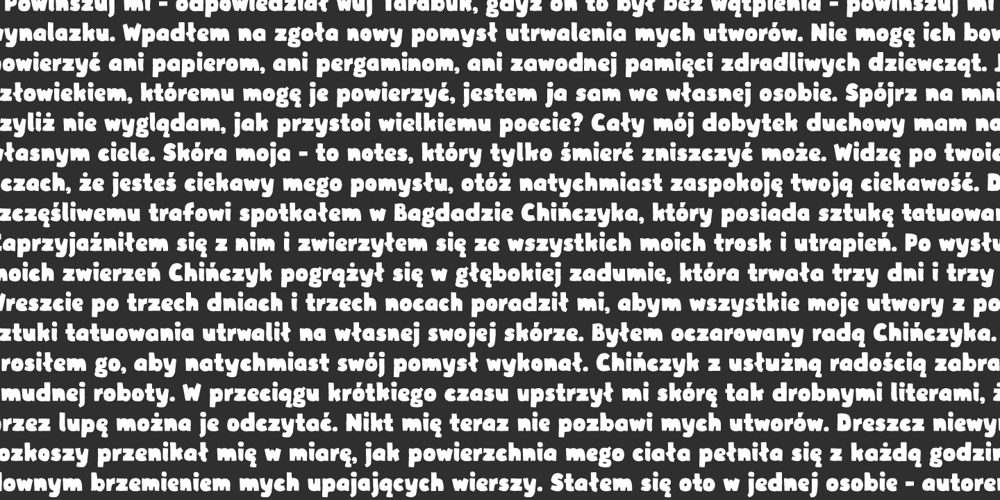
Graphen
Graphen font
Graphen Font Family was designed by Maciej Włoczewski and published by Picador. Graphen contains 5 styles and family package options. Graphen family is a hand drawn typeface with 5 different weights. This font contains script that replaces glyphs with their alternates. It is based on checking the same glyphs in close range – not on a random appearance. Every weight was designed with attention to detail, so it can be used in small sizes and even on big posters. Weights include different features, such as dingbats or old style figures.